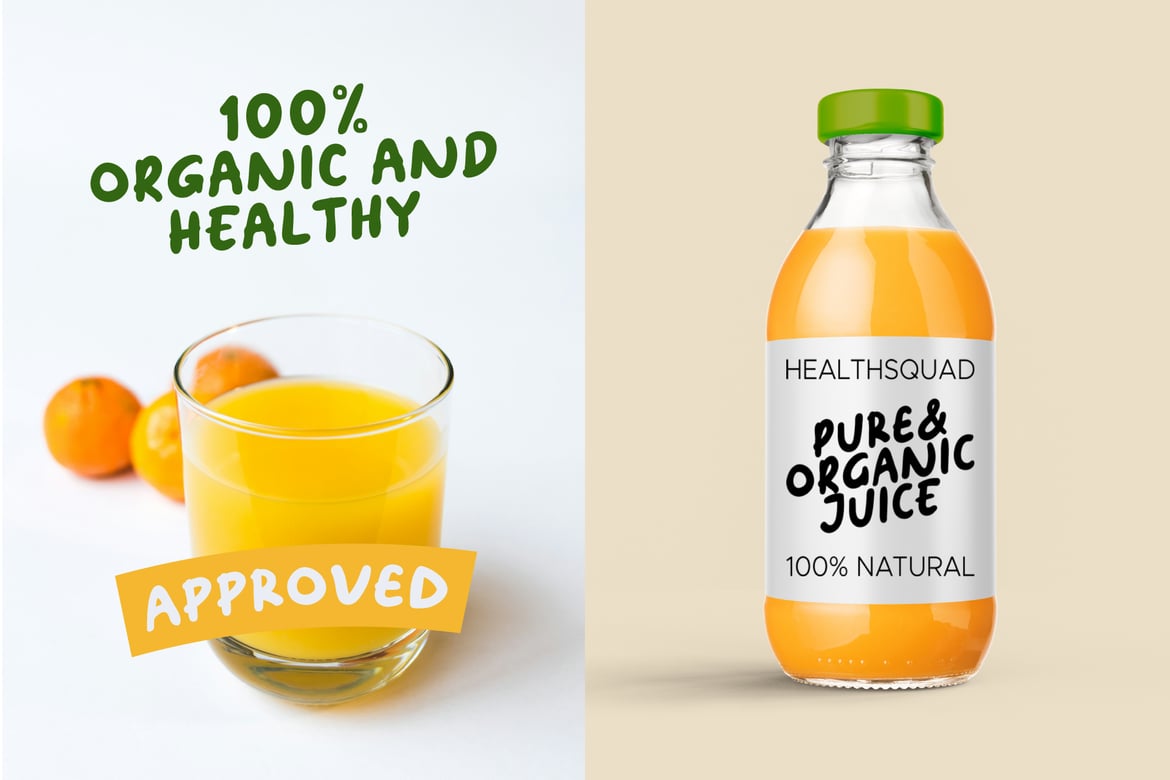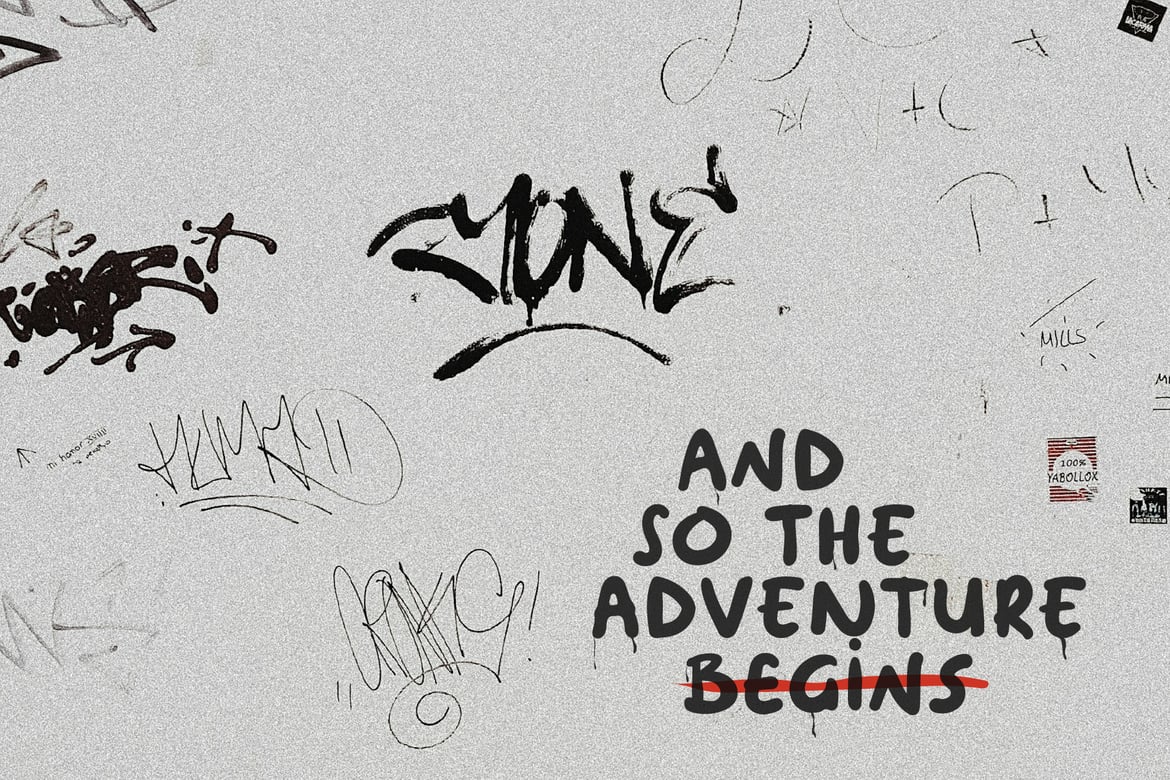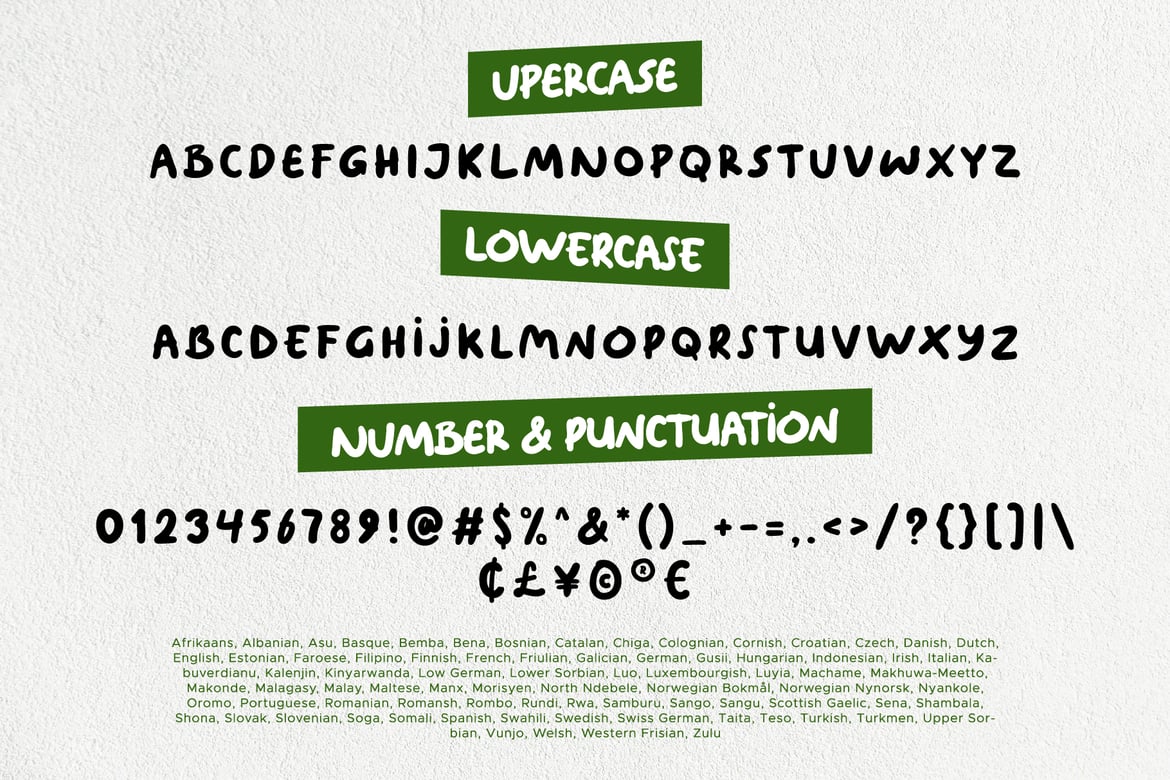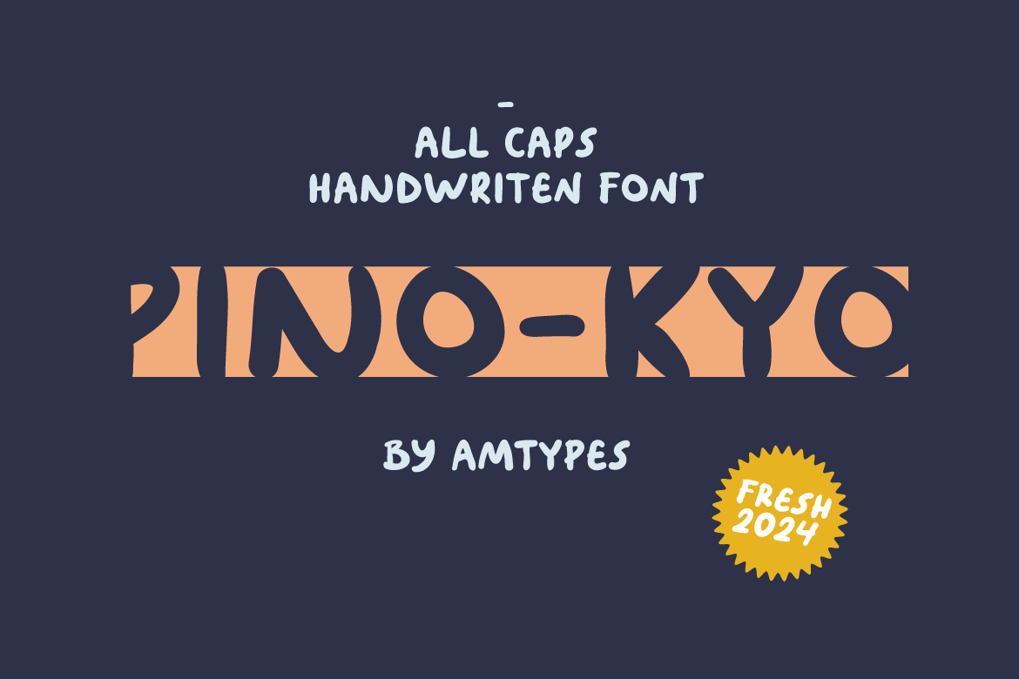
Pinokyo – Handwriten Font
This font is also highly versatile and can be used for a variety of purposes, such as headings, body text, and even logos. Whether you’re creating a children’s book, designing a greeting card, or crafting a social media post, Pinokyo is sure to add a touch of personality and charm to your work.